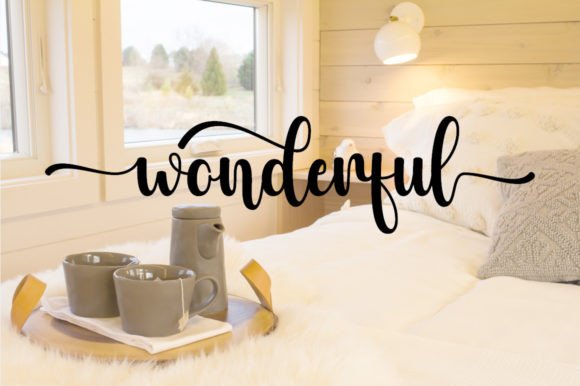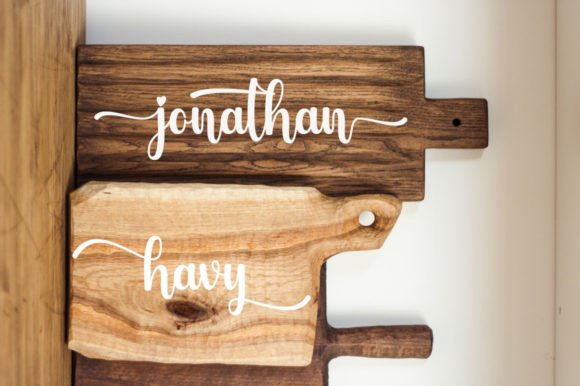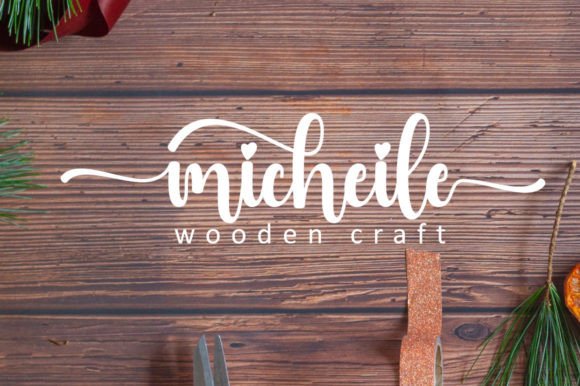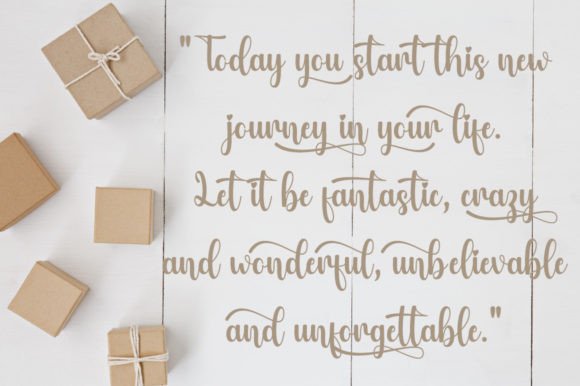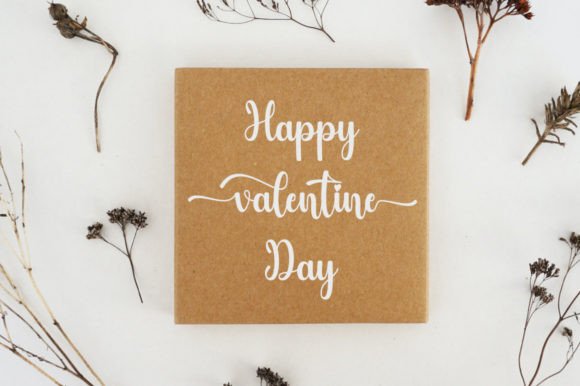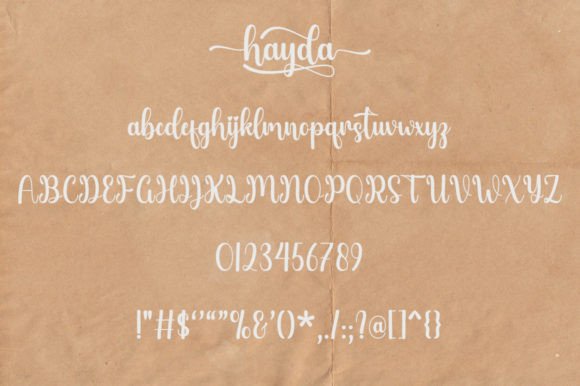
Introduction to Hayda Font
Hayda is a stylish and incredibly elegant handwritten font.
It looks stunning on wedding invitations, thank you cards, quotes, greeting cards, logos, business cards and every other design which needs a handwritten touch This font is PUA encoded which means you can access all of the glyphs and swashes with ease.